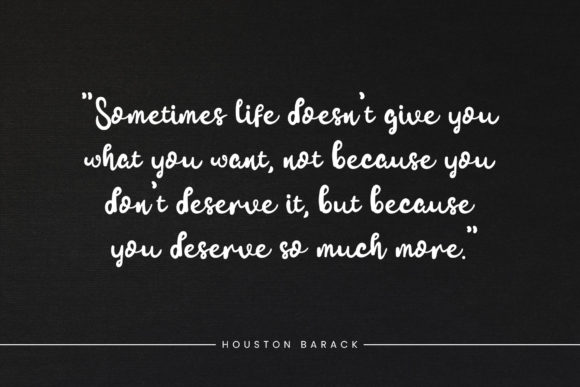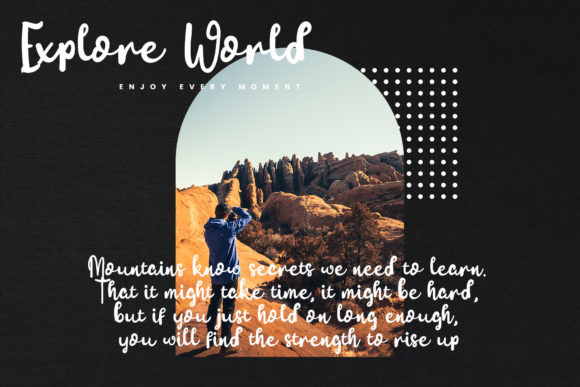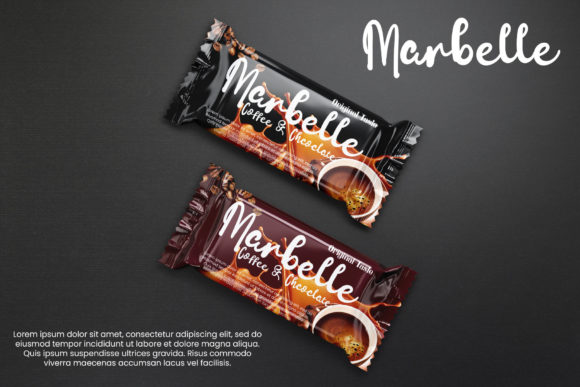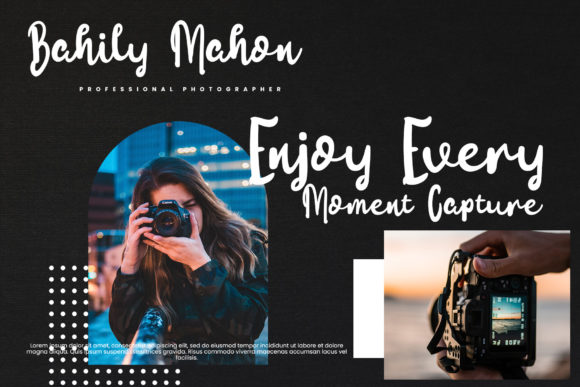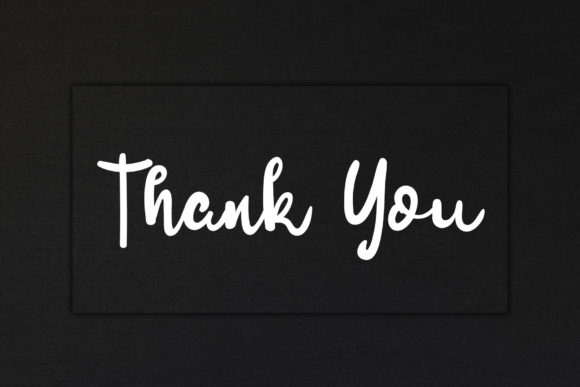
Houston Font
About Houston Font
Houston is a beautiful handwritten font created with the help of a lovely brush. It will fit perfectly into any design project you wish to create! This font is PUA code which means you can easily access all the amazing glyphs and ligatures!